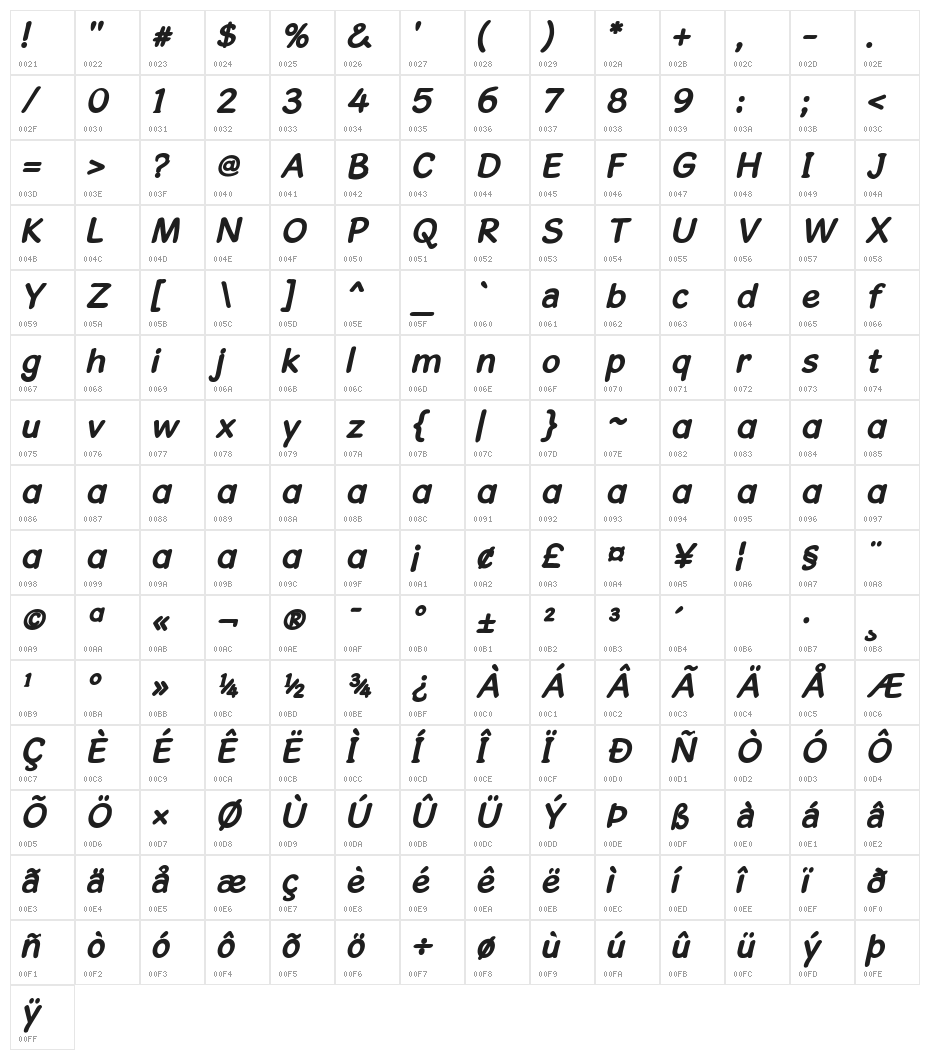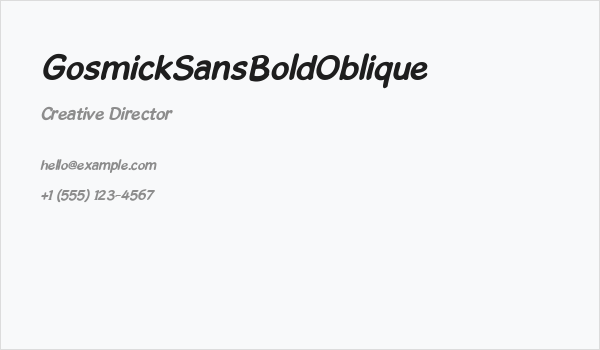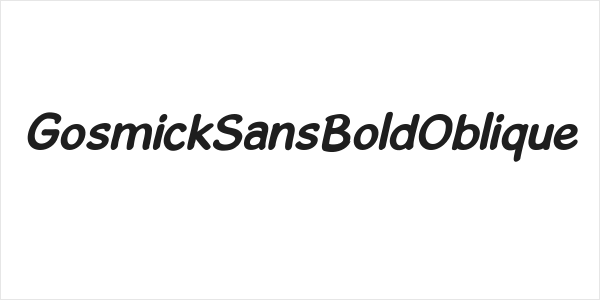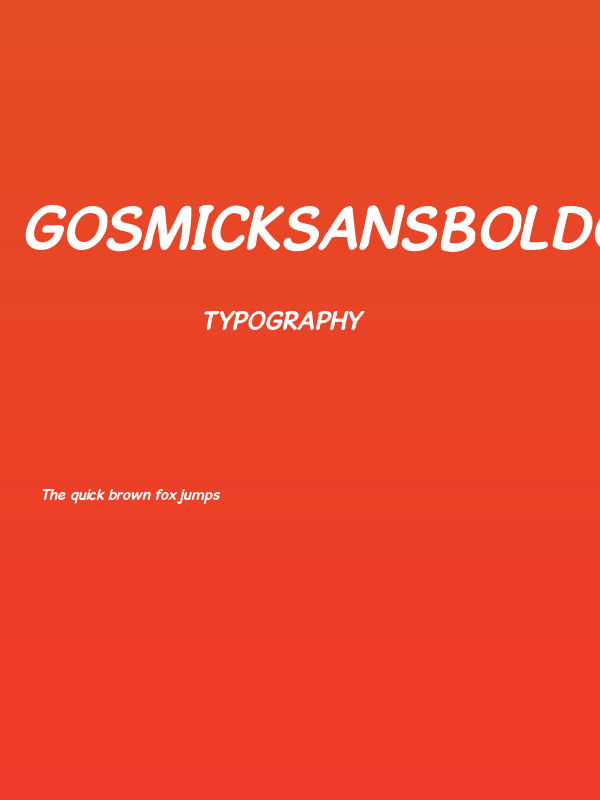
GosmickSansBoldOblique Font
GosmickSansBoldOblique Description
This font features a bold and oblique style, characterized by its rounded and smooth letterforms. The strokes are thick and consistent, providing a strong visual impact. The letters are slightly slanted, giving a dynamic and energetic feel. The font maintains a playful yet professional appearance, making it versatile for various design needs. Its readability is enhanced by the clear distinction between characters, despite the boldness. The numbers and special characters are designed to match the overall style, ensuring uniformity across all elements.
| Use Case | Headlines, Logos, Advertising |
| Proposed Projects | Ideal for branding, advertising, headlines, and playful design projects that require a bold statement. |